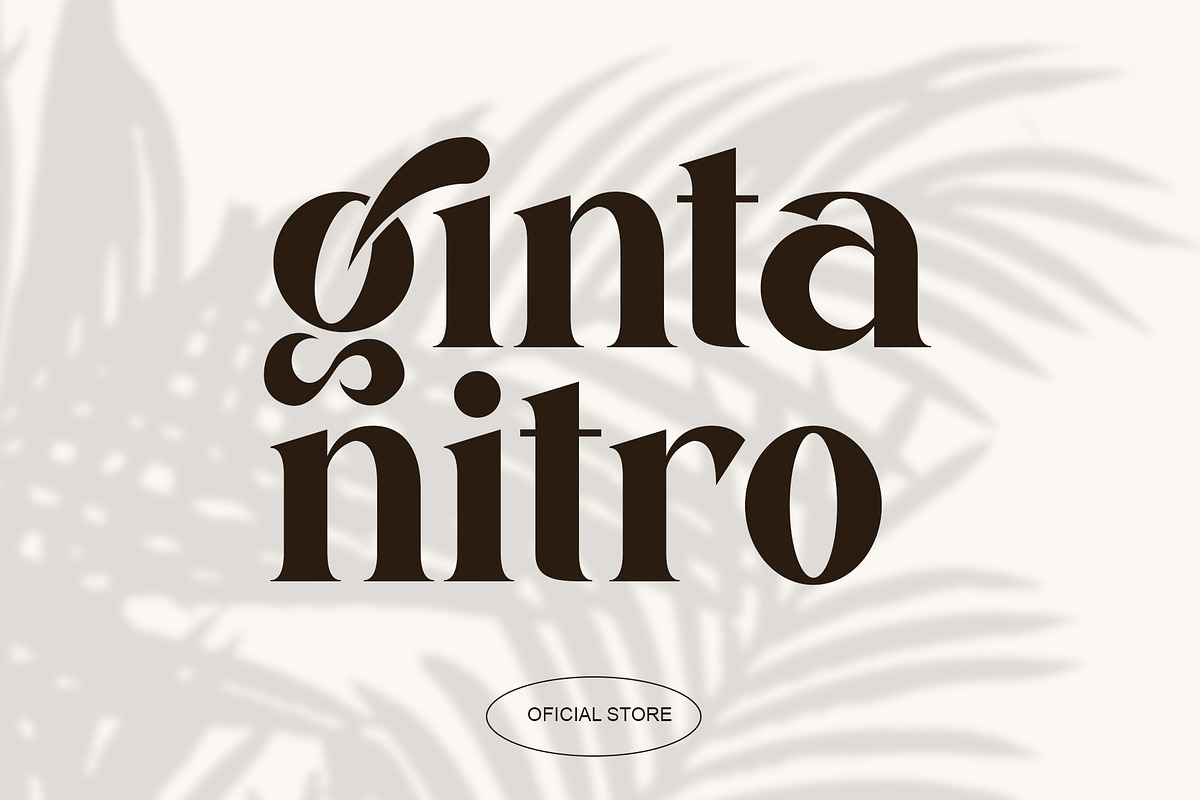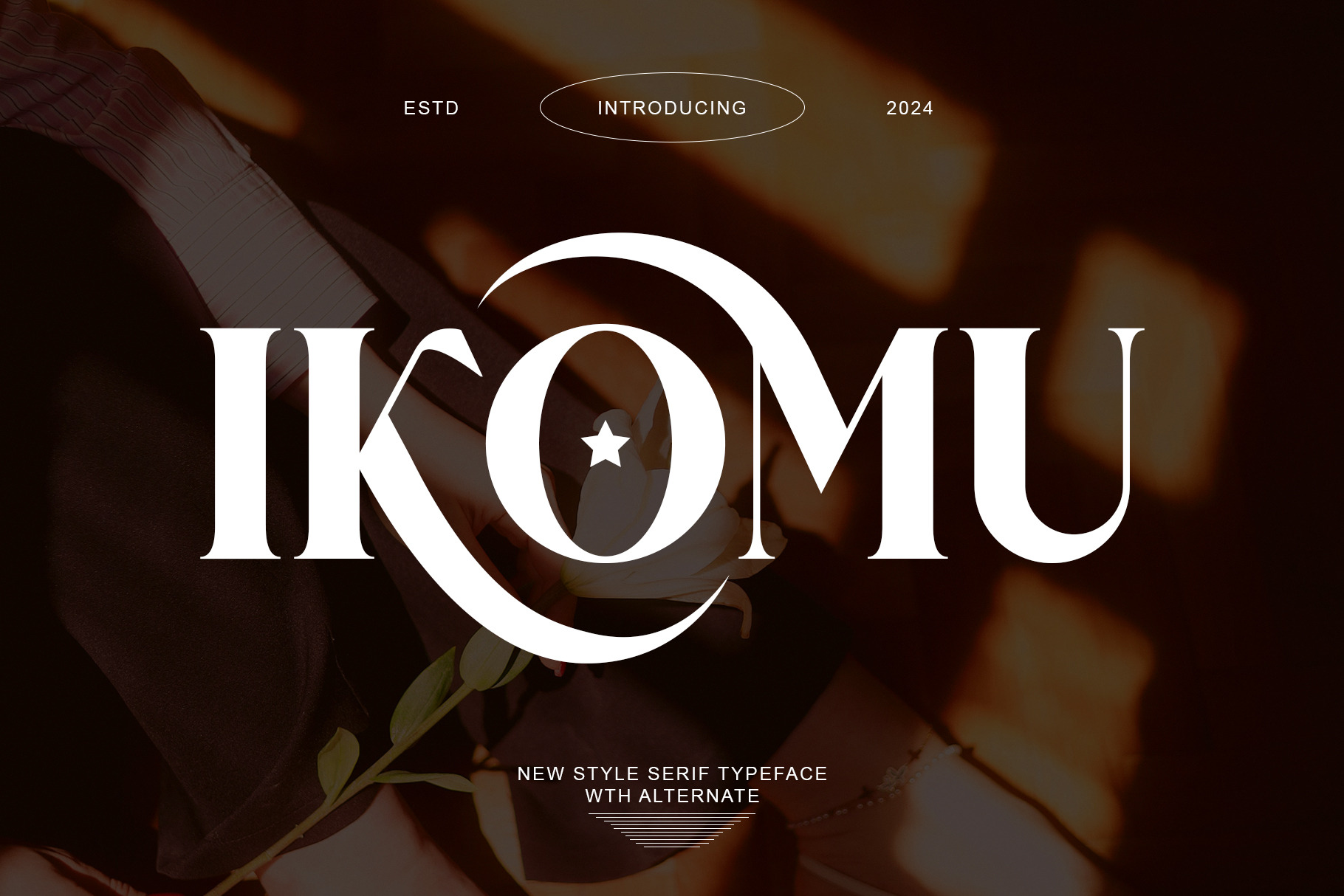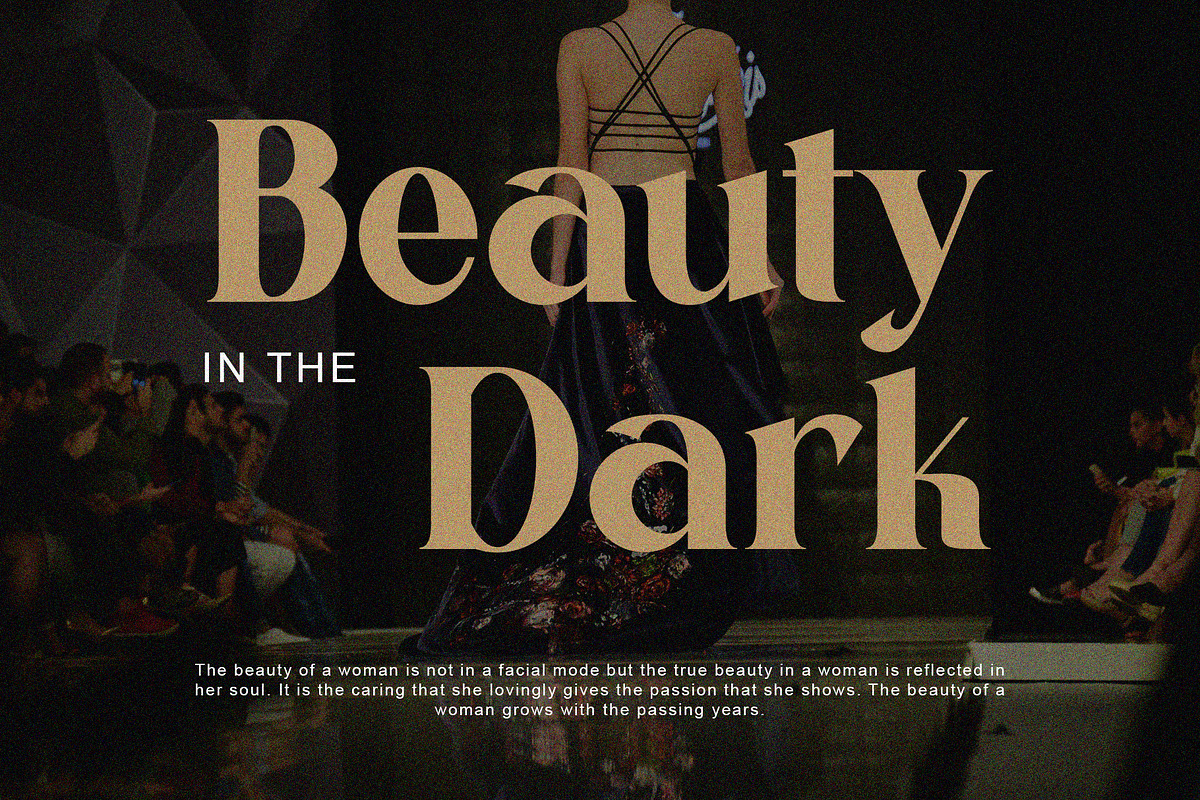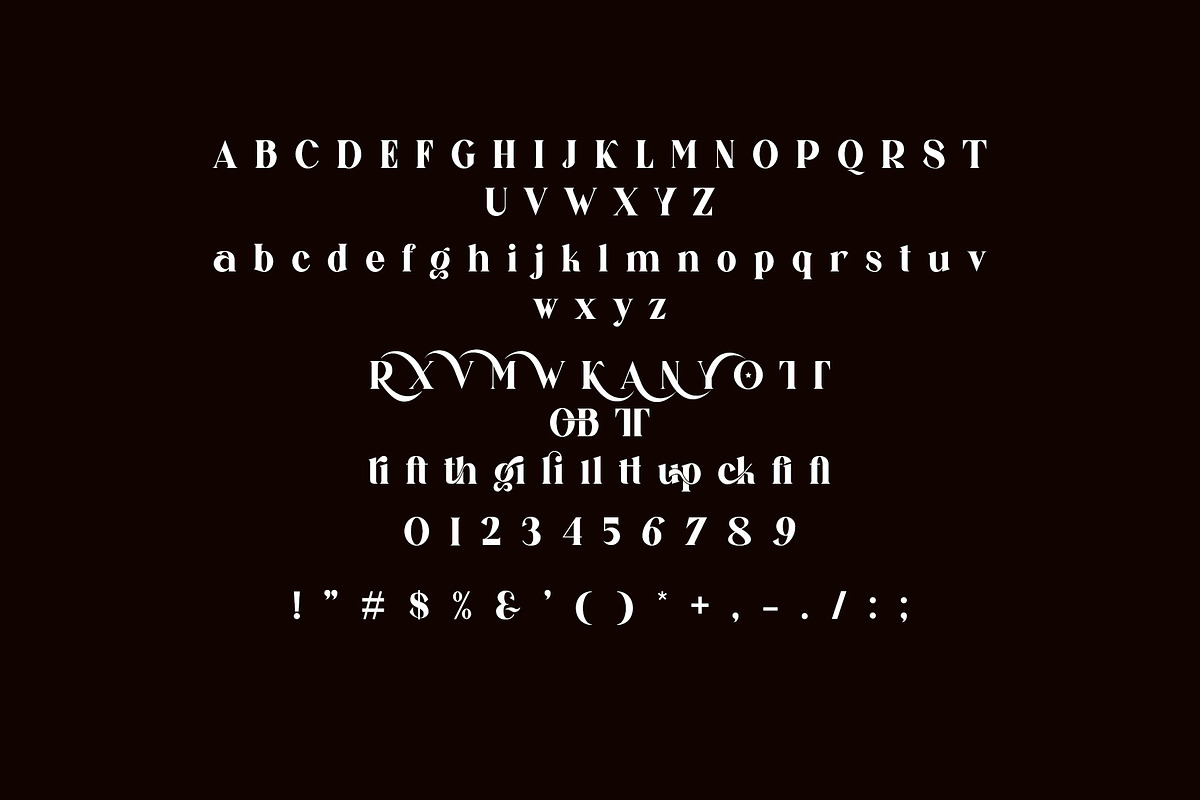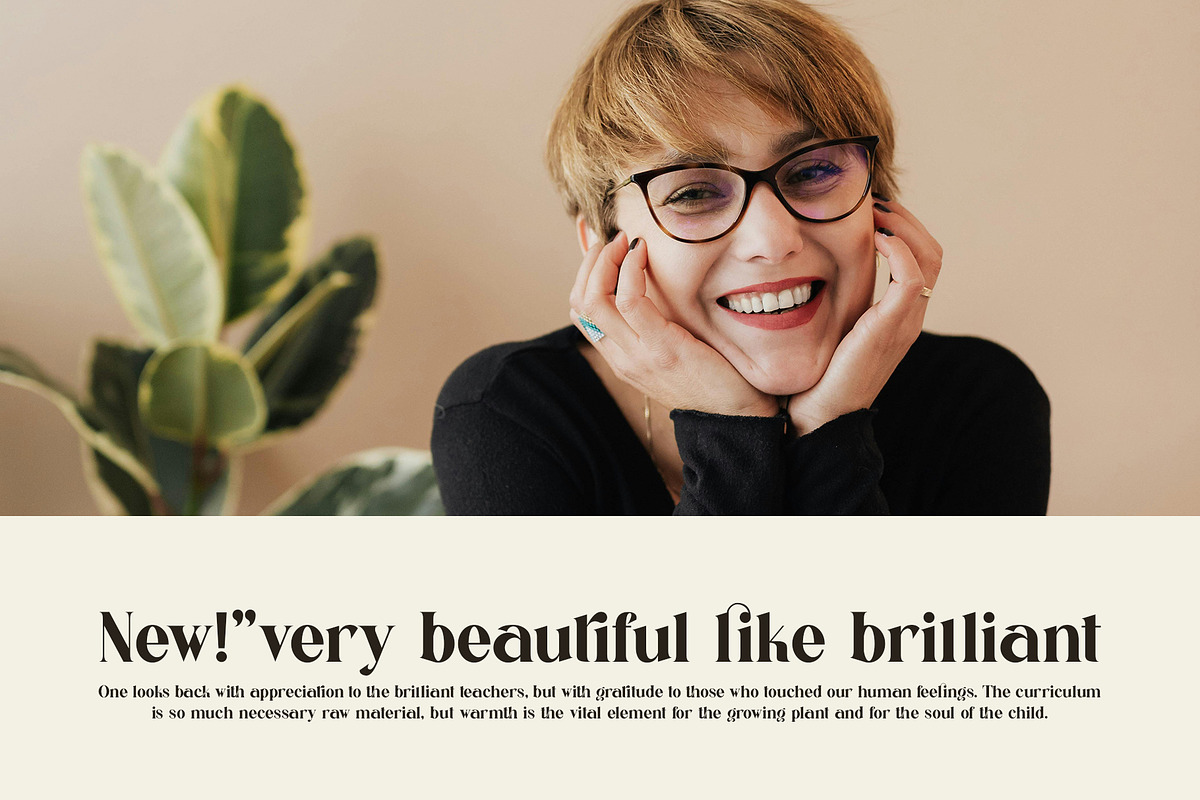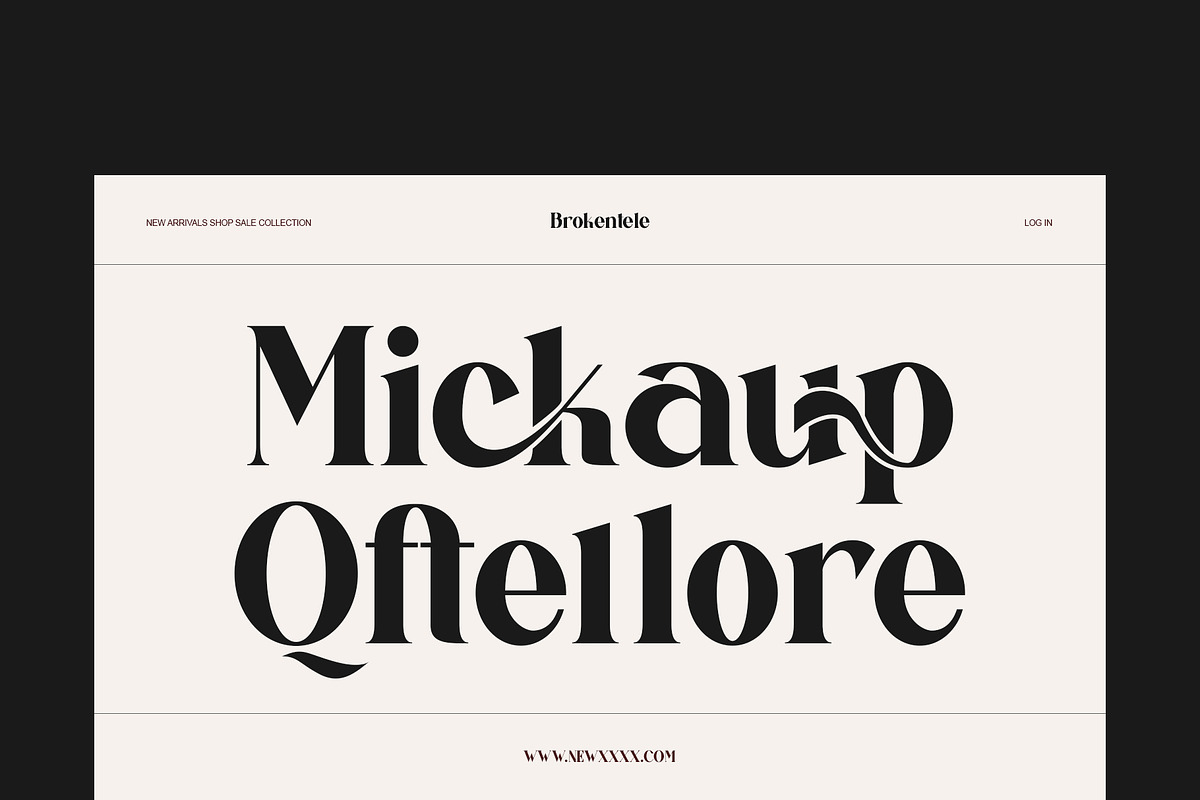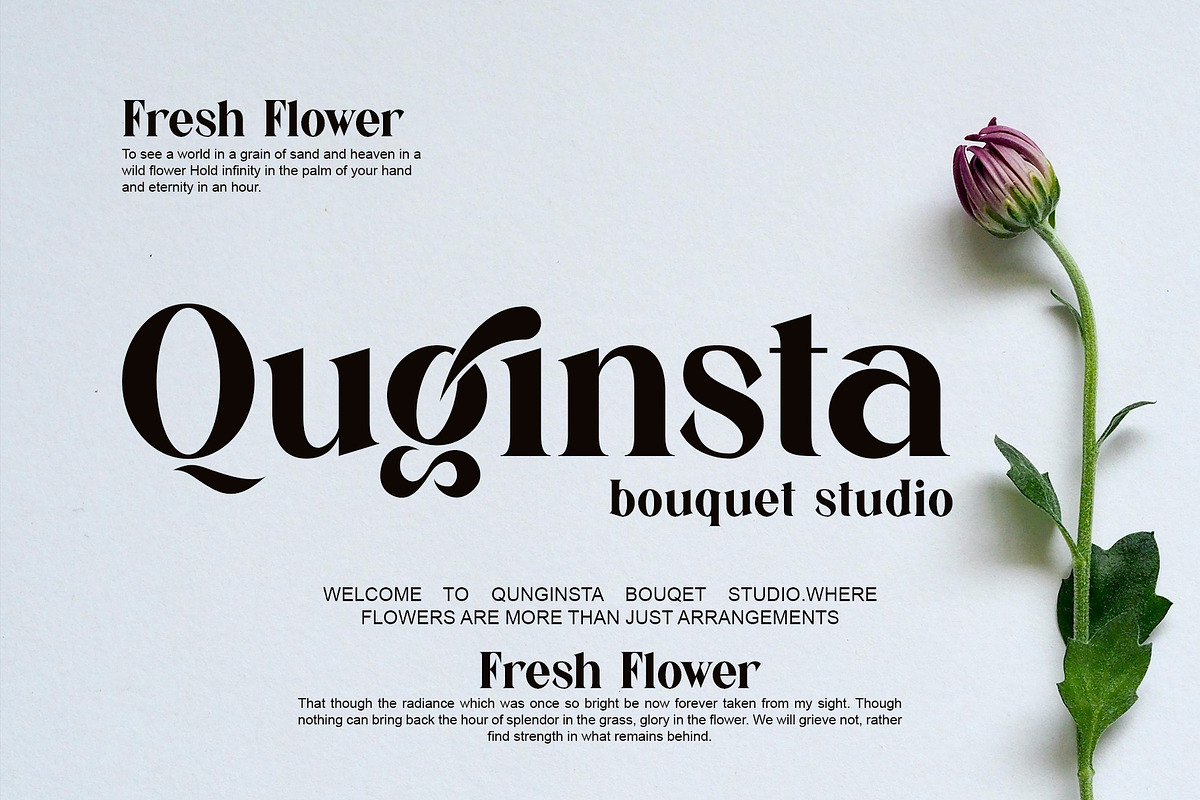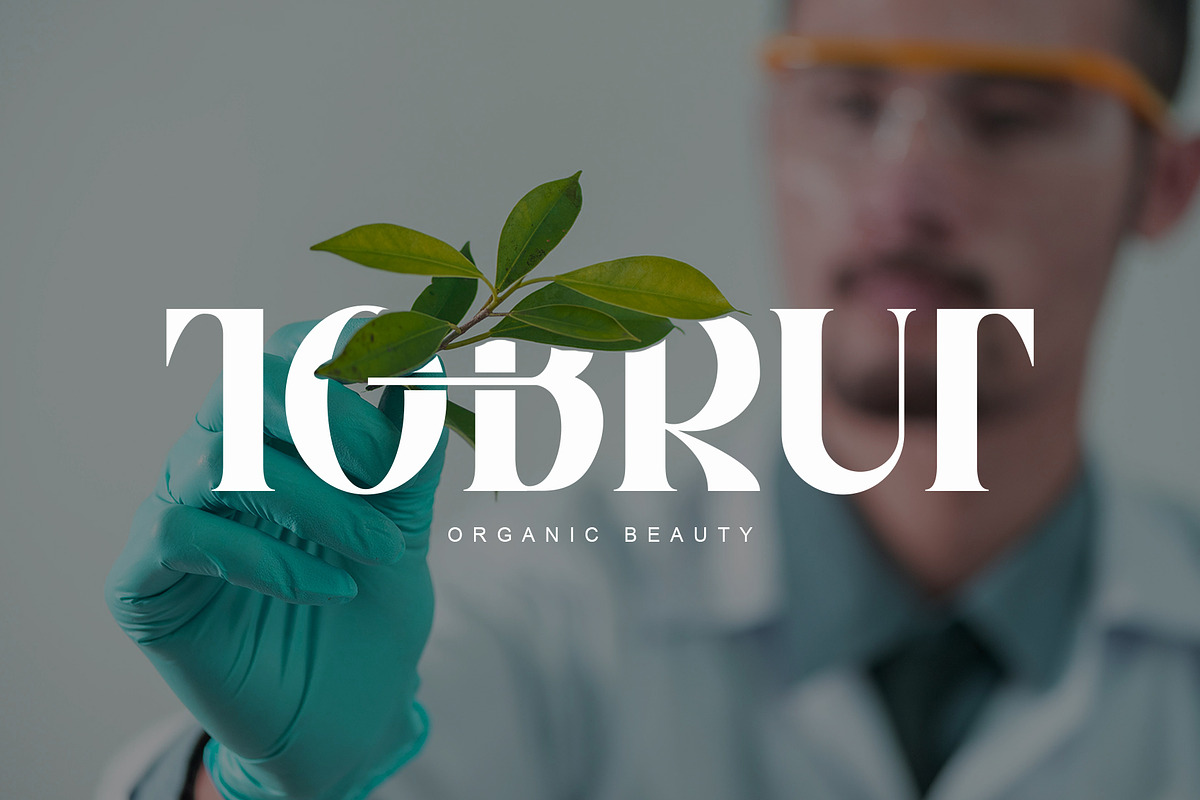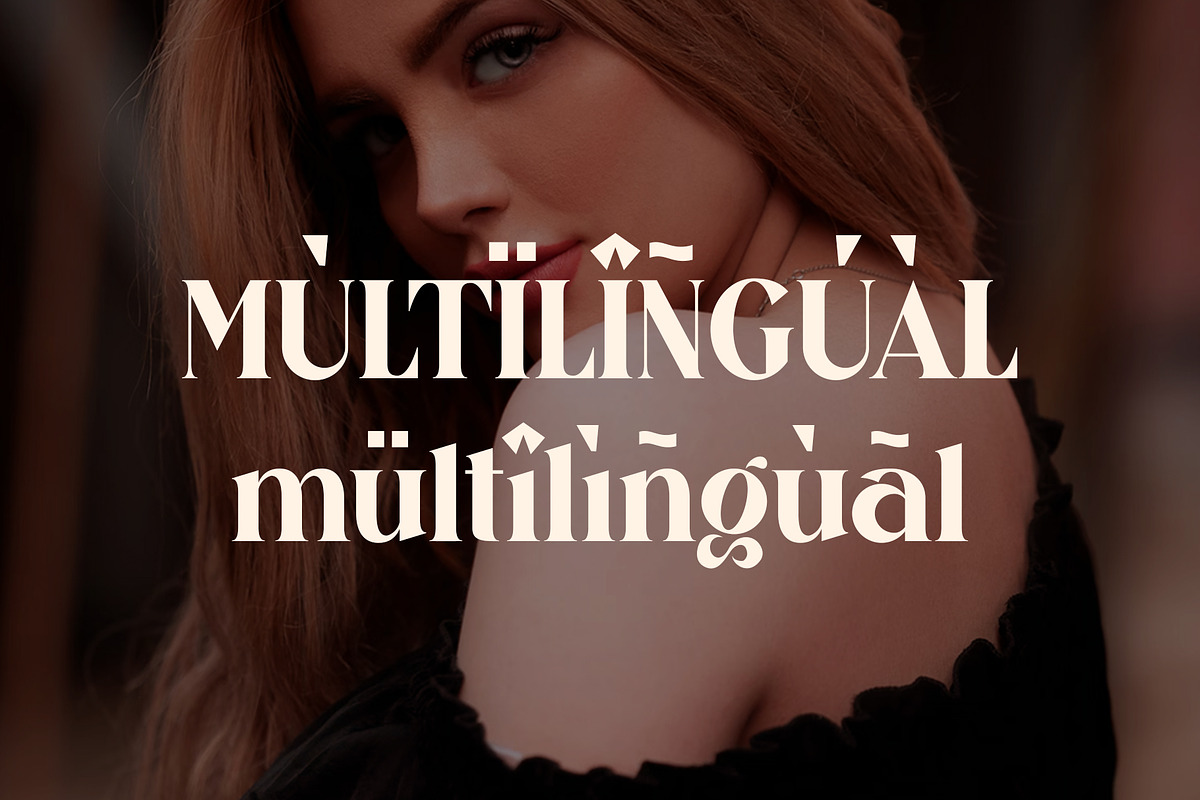
IKOMU UNnique Serif Typeface
IKOMU is a elegant and classy serif typeface – This font is both modern and nostalgic and works great for logos, magazine, social media. Already matched up and ready to be used together for your next design! For those of you who are needing a touch of elegant, stylish, classy, chic and modernity for your designs, this font was created for you!
IKOMU was built with OpenType features and includes ligatures, numbers, punctuation, and it also supports other languages.